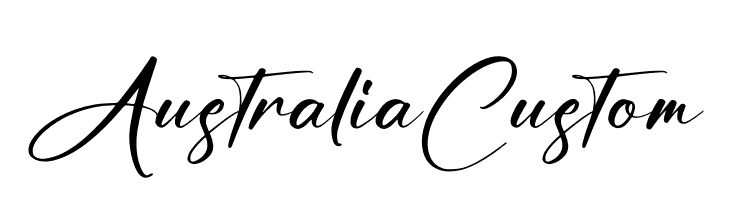
A graceful script font with fluid, cursive strokes and elegant curves.
A bold, cracked font with a distressed, edgy appearance.
A modern, oblique font with medium weight and clean lines.
A hand-drawn, rustic font with irregular strokes and an organic feel.
A bold, cursive script font with a flowing, handwritten style.
A graceful, cursive script font with a handwritten style.
A bold, playful font with rounded, bubble-like characters.
A sleek, modern italic font with thin lines and a dynamic appearance.
A decorative font with letters encased in dreamcatcher motifs, featuring feather details.